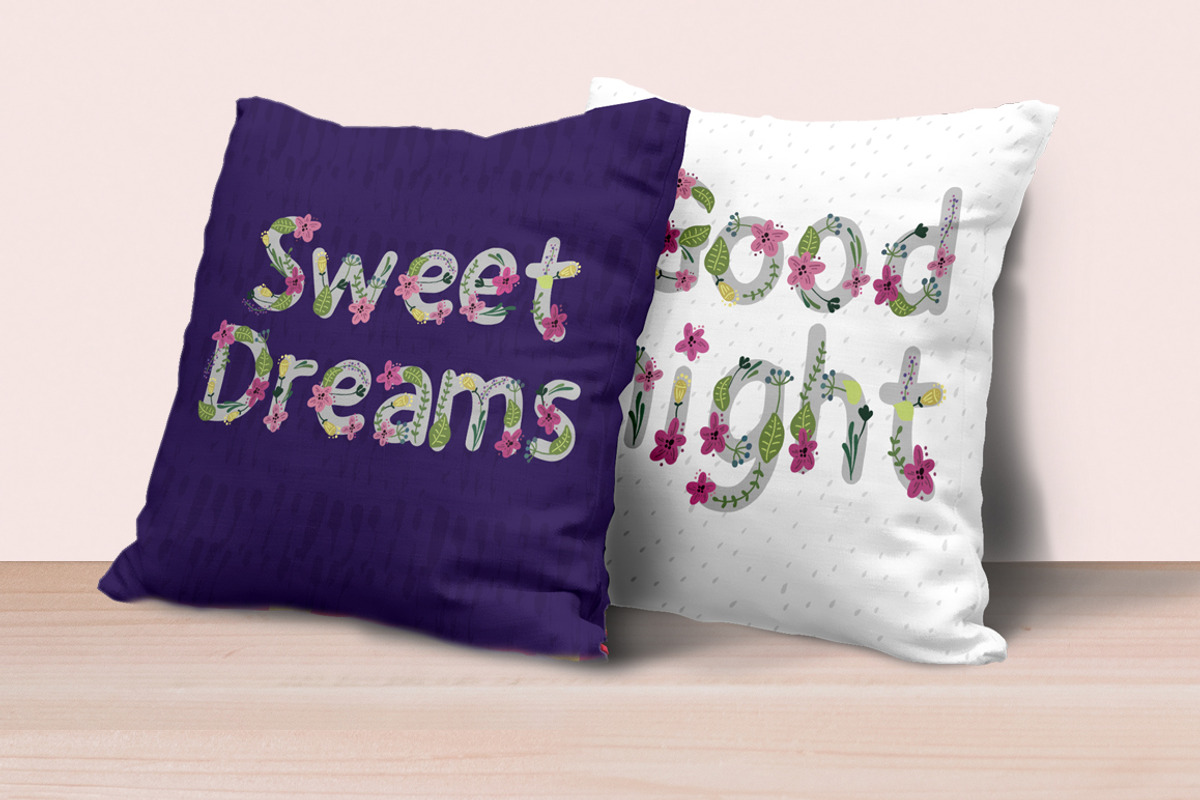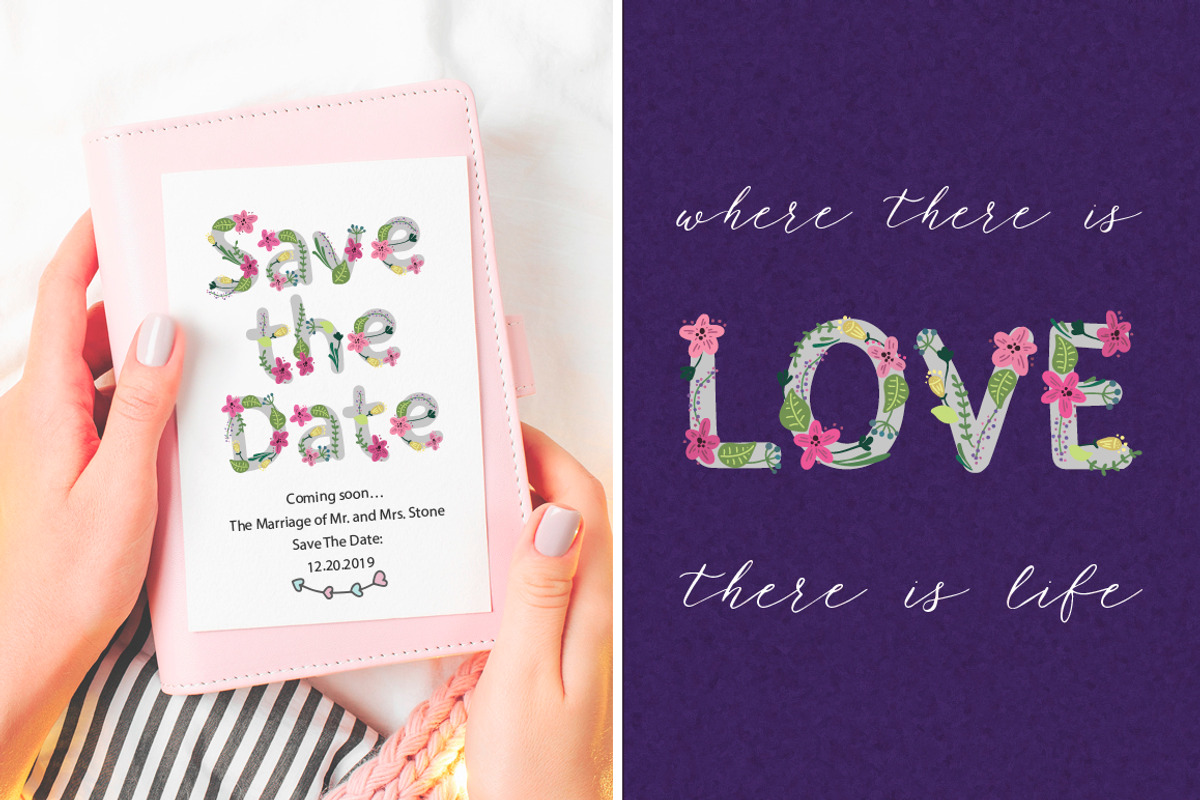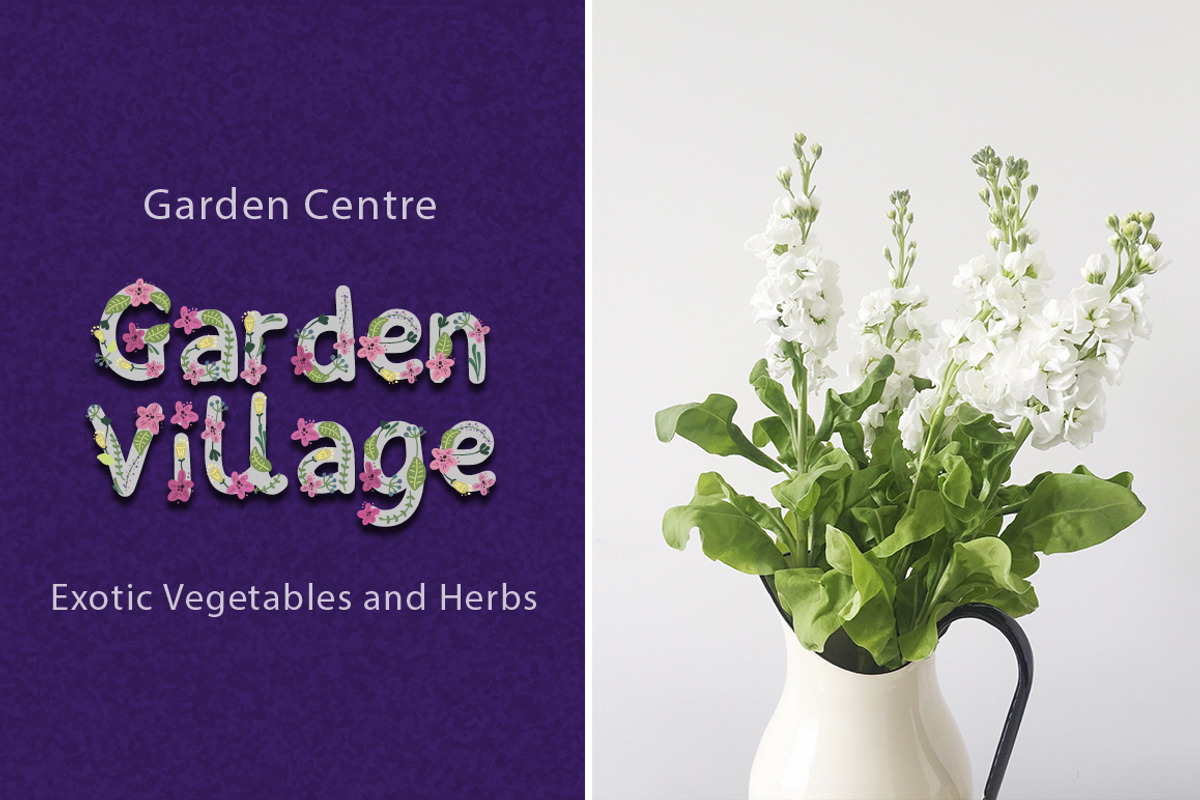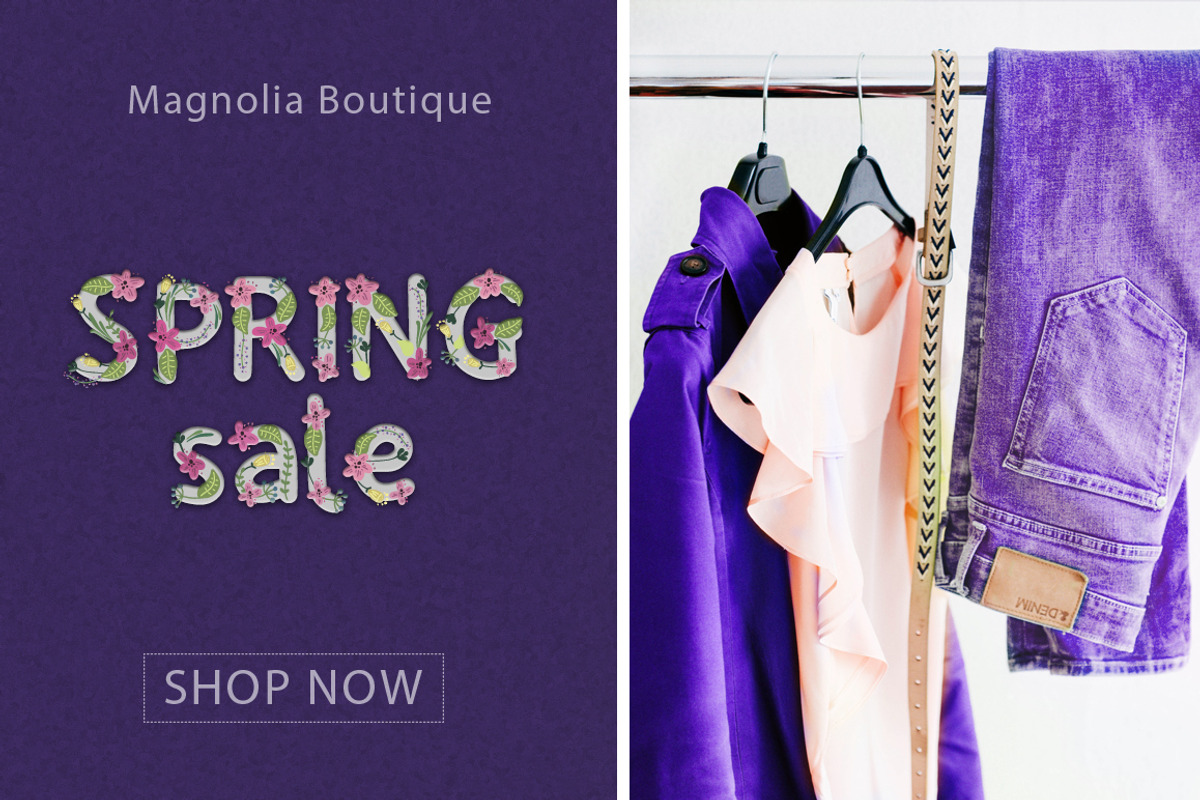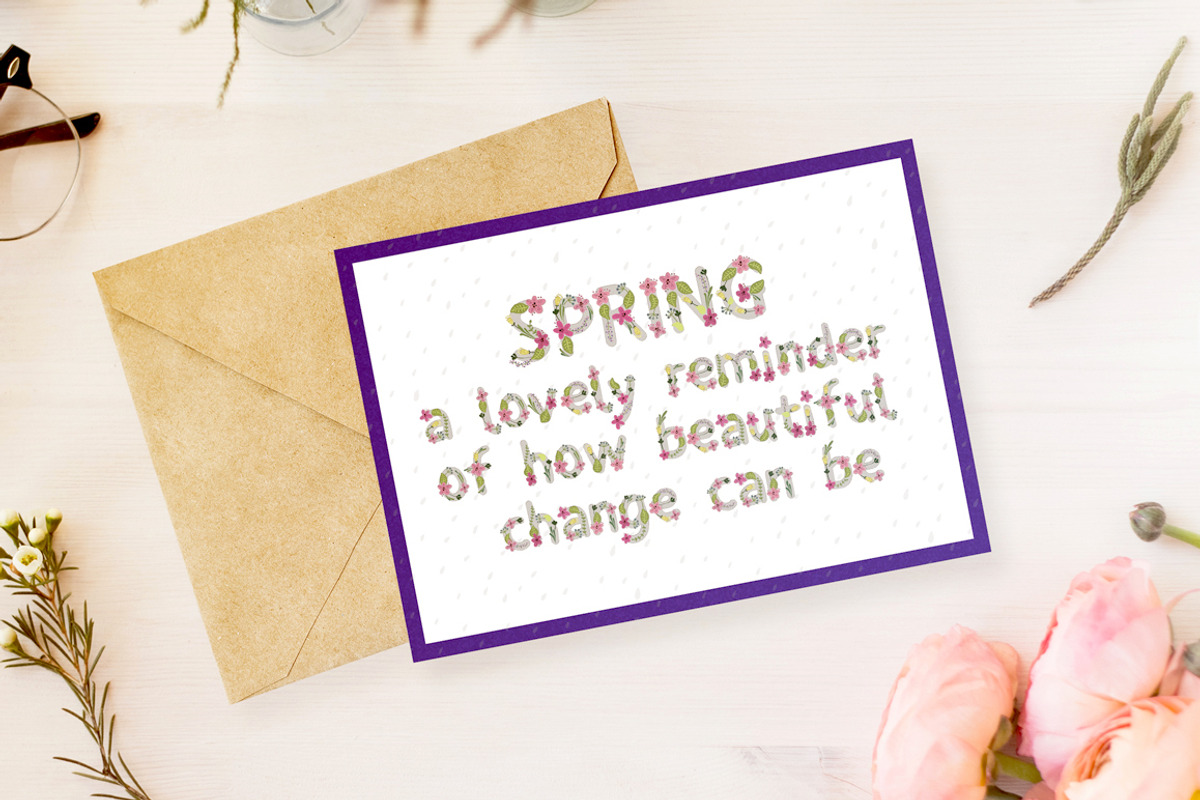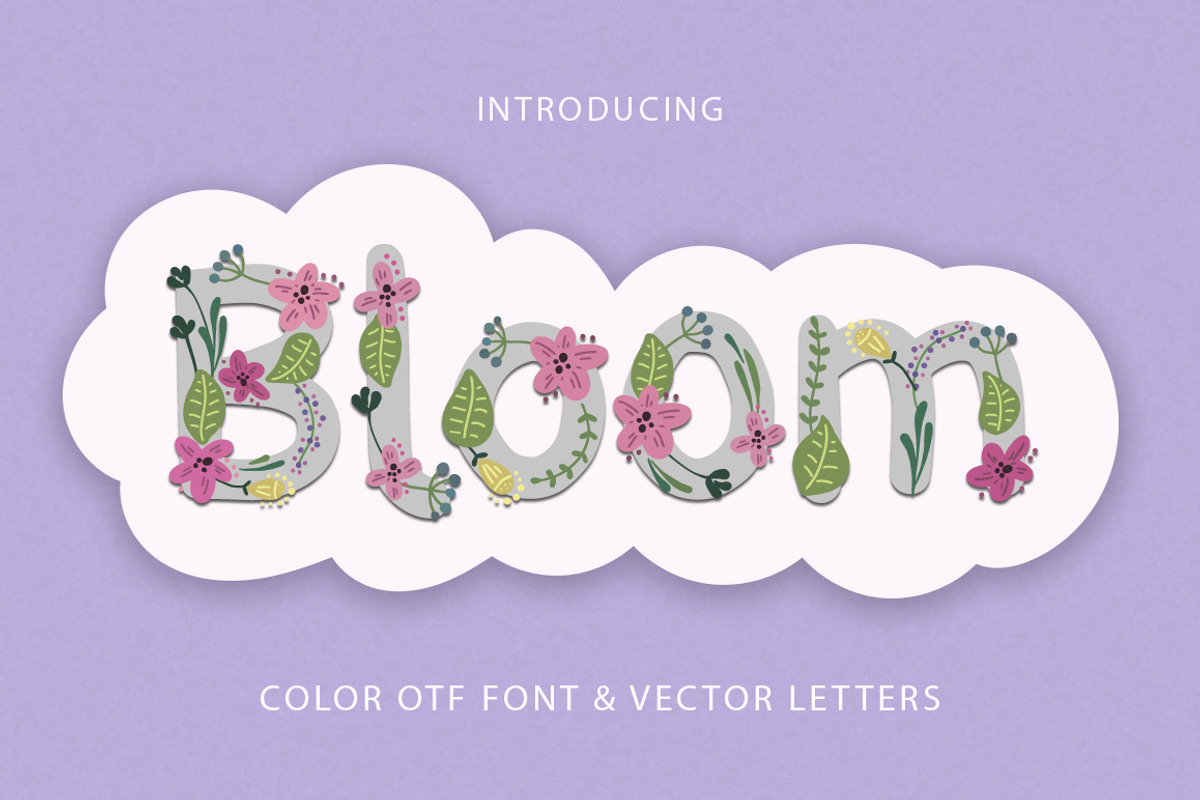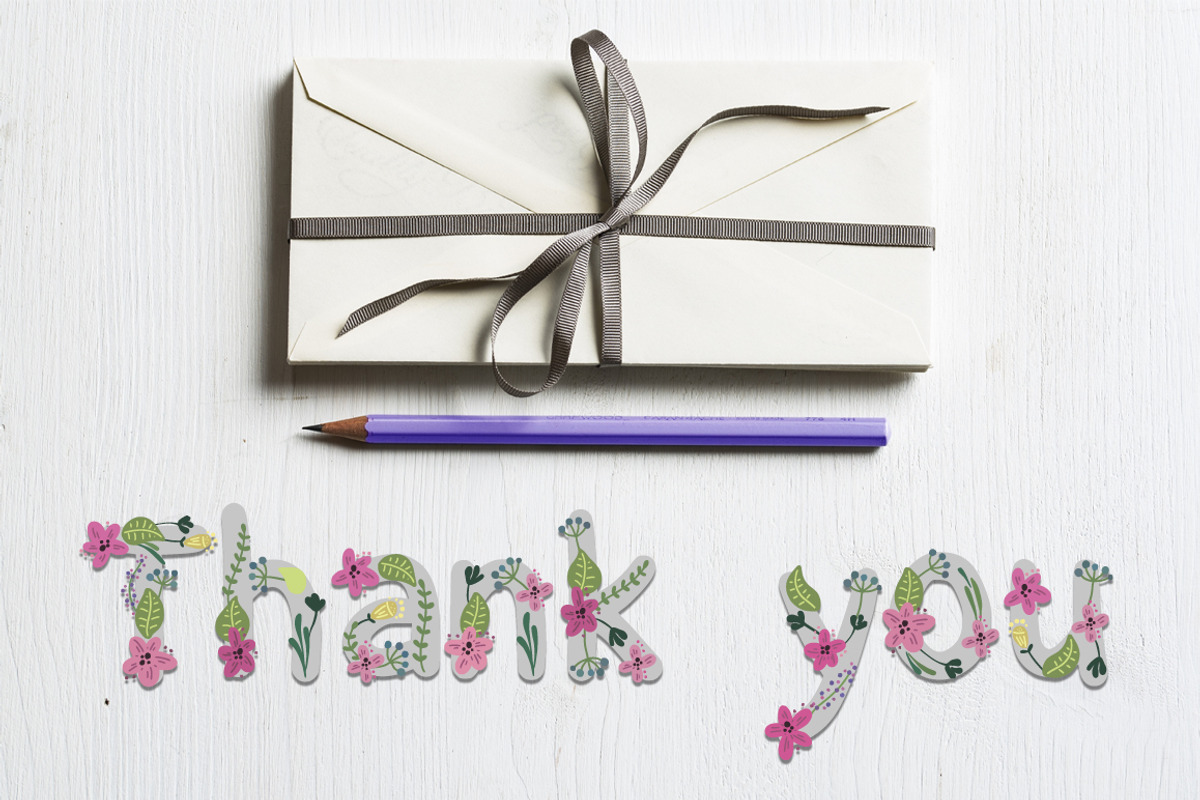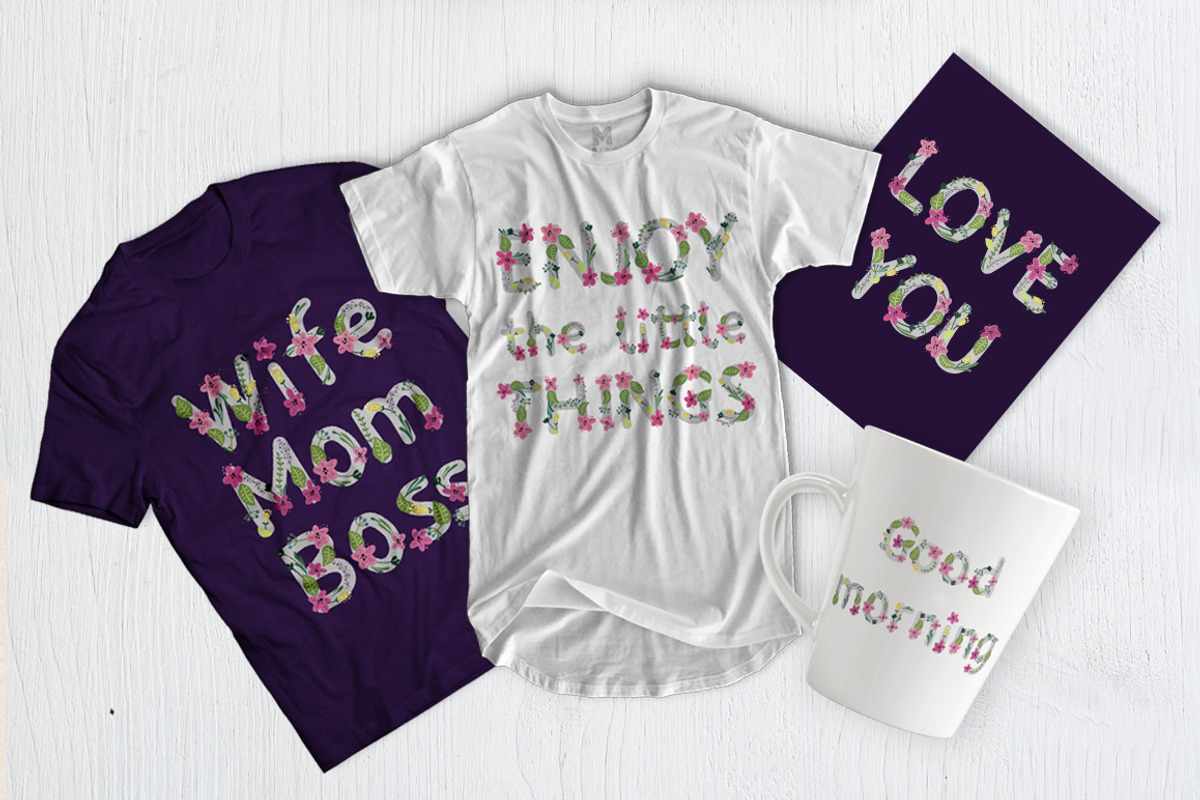
Bloom. Color Spring Font.
💐 I'm very pleased to introduce you my new color spring fresh unique blooming font BLOOM.💐
Very decorative, richly decorated with flowers, this font looks beautifully on a light and dark background.
Full set of uppercase & lowercase letters, availability of ligatures and wide variety of punctuation characters make this font a unique tool for creating spring blooming designs. It would be perfect for posters, t-shirts, greeting cards, mugs, and any other projects you are working on.